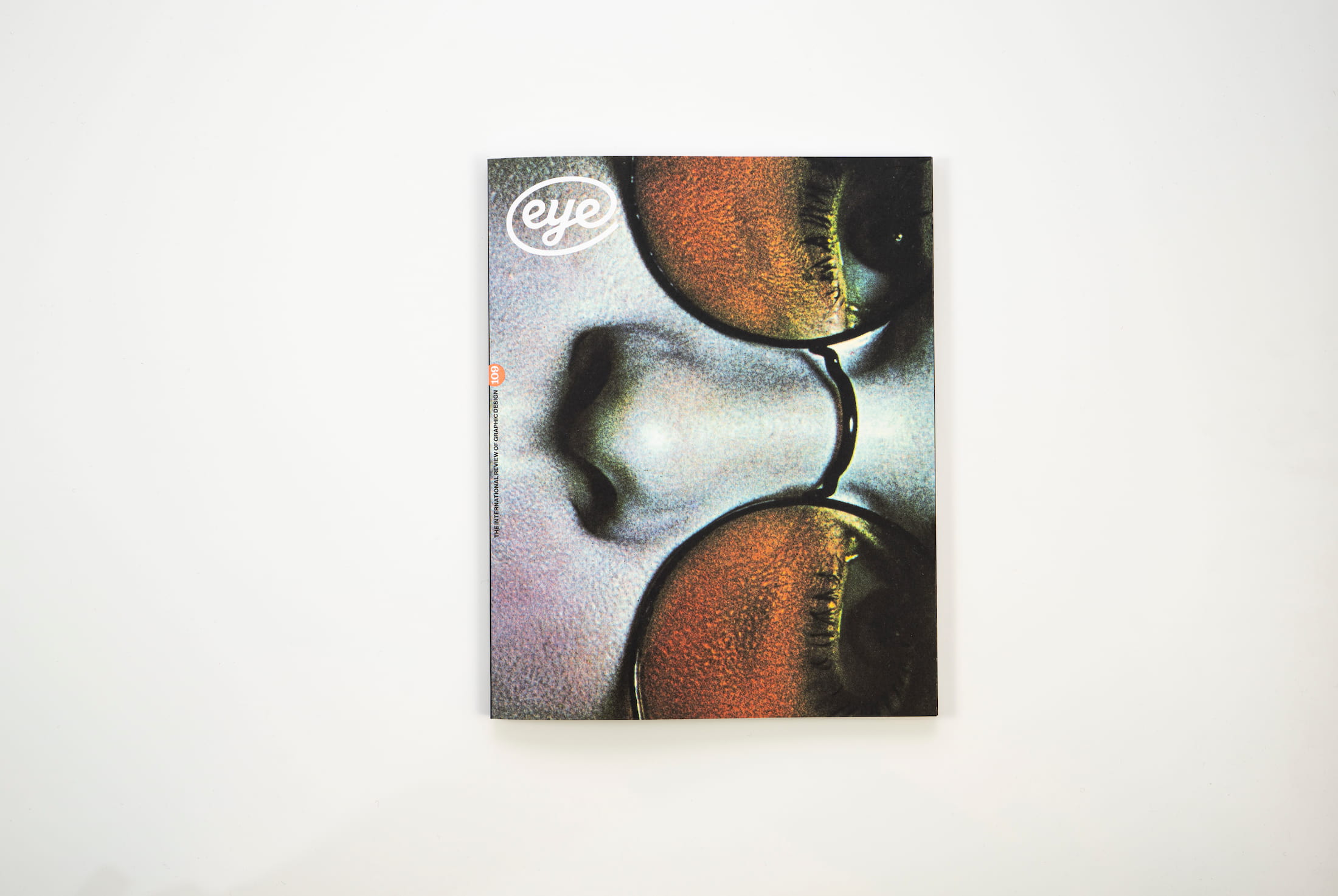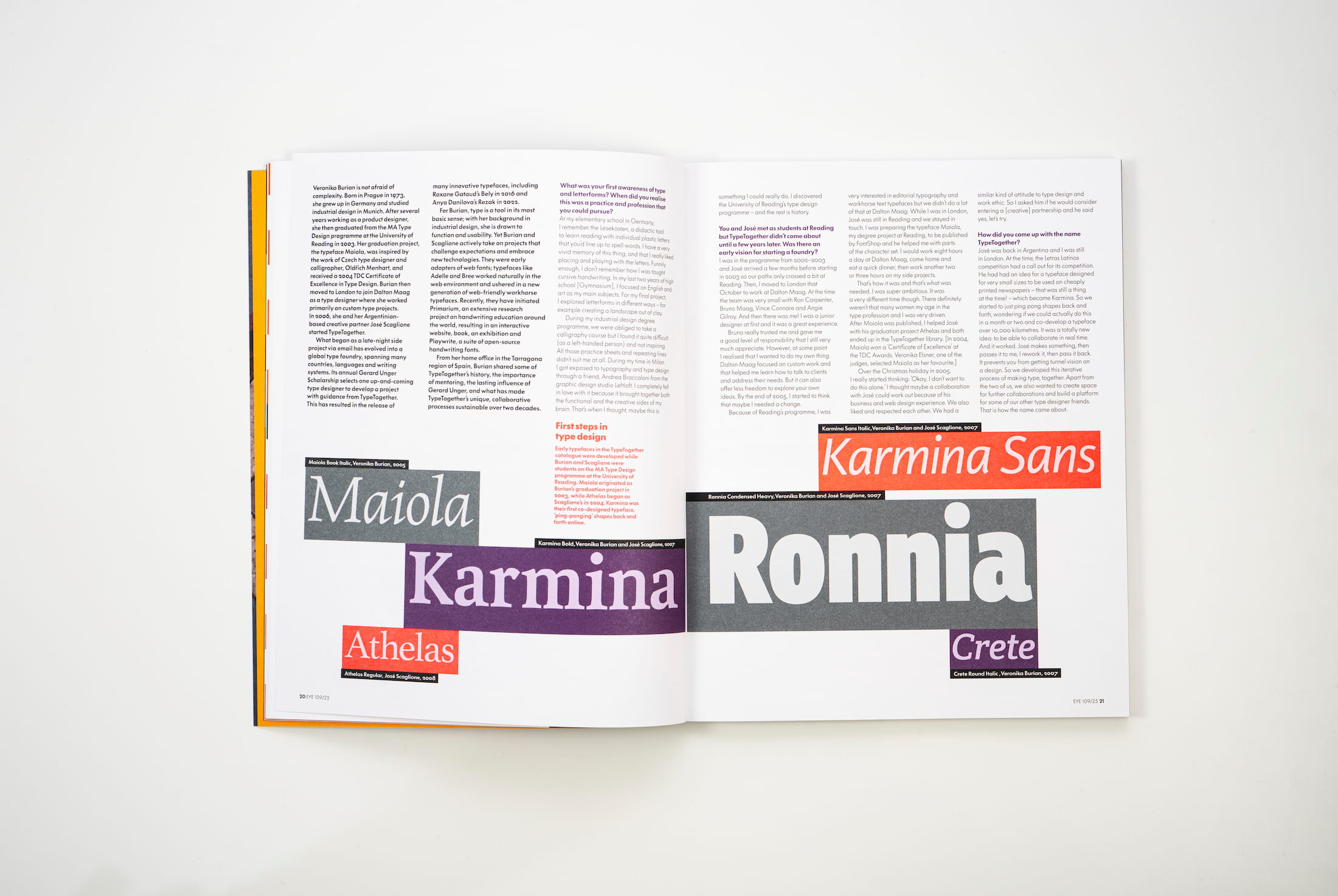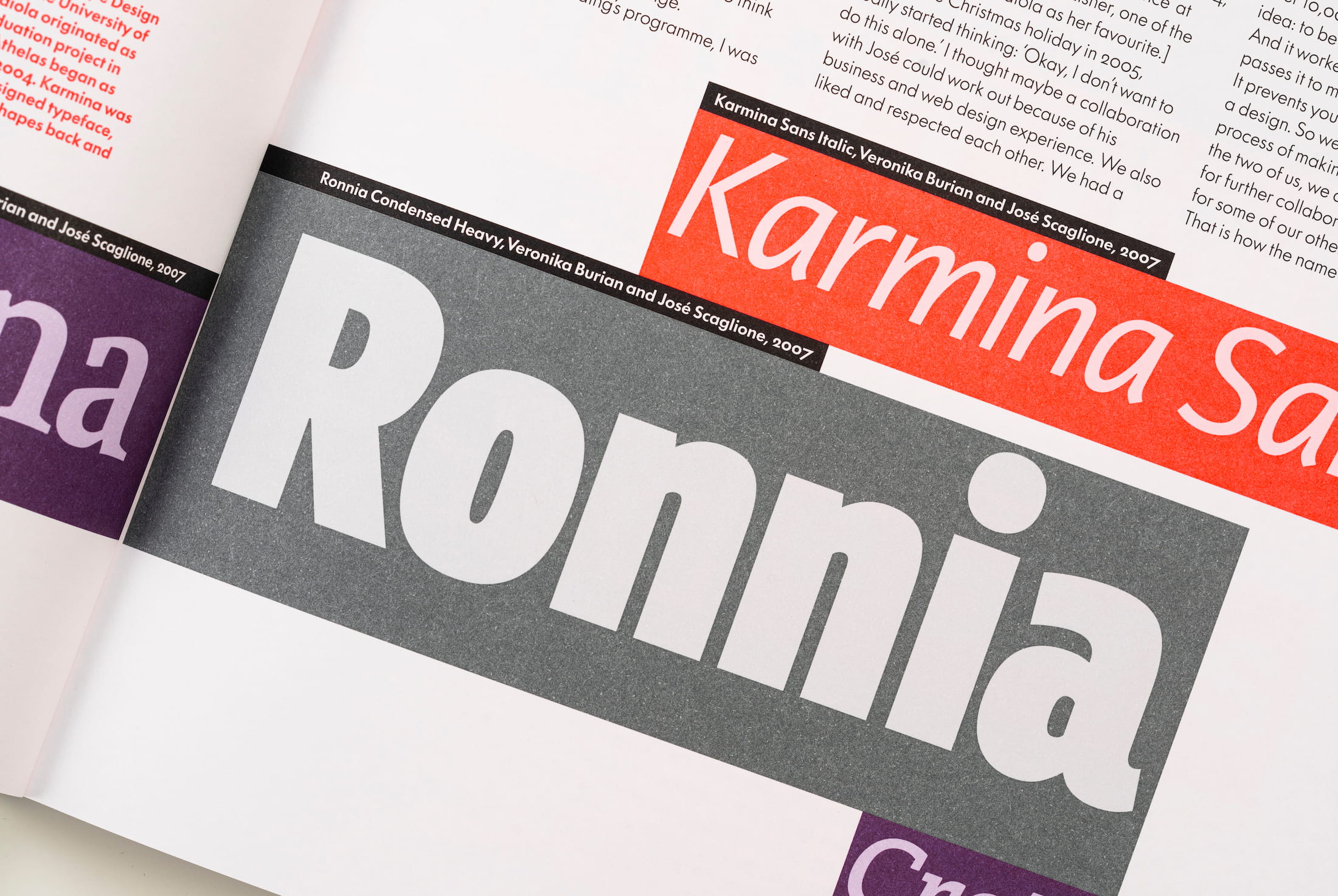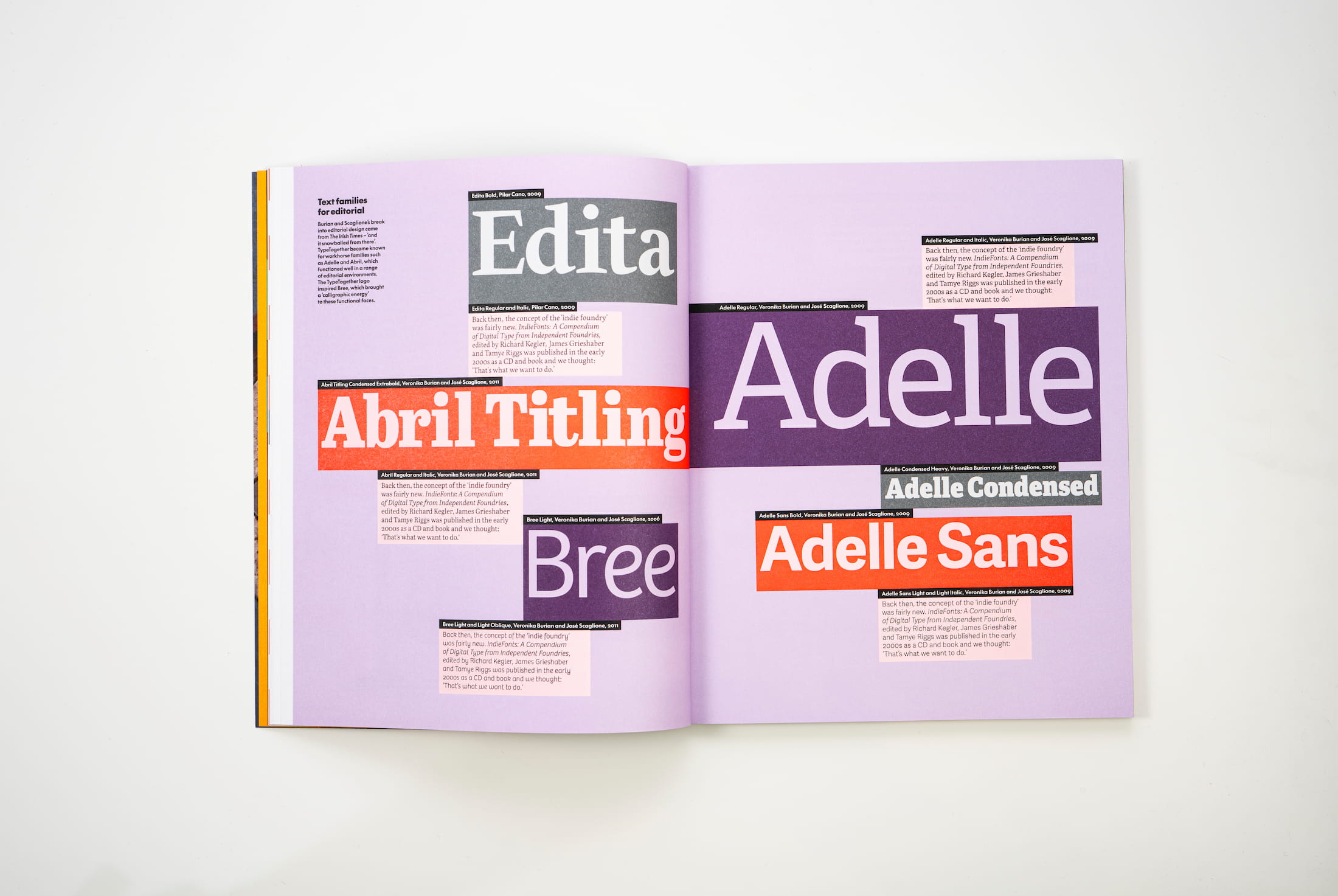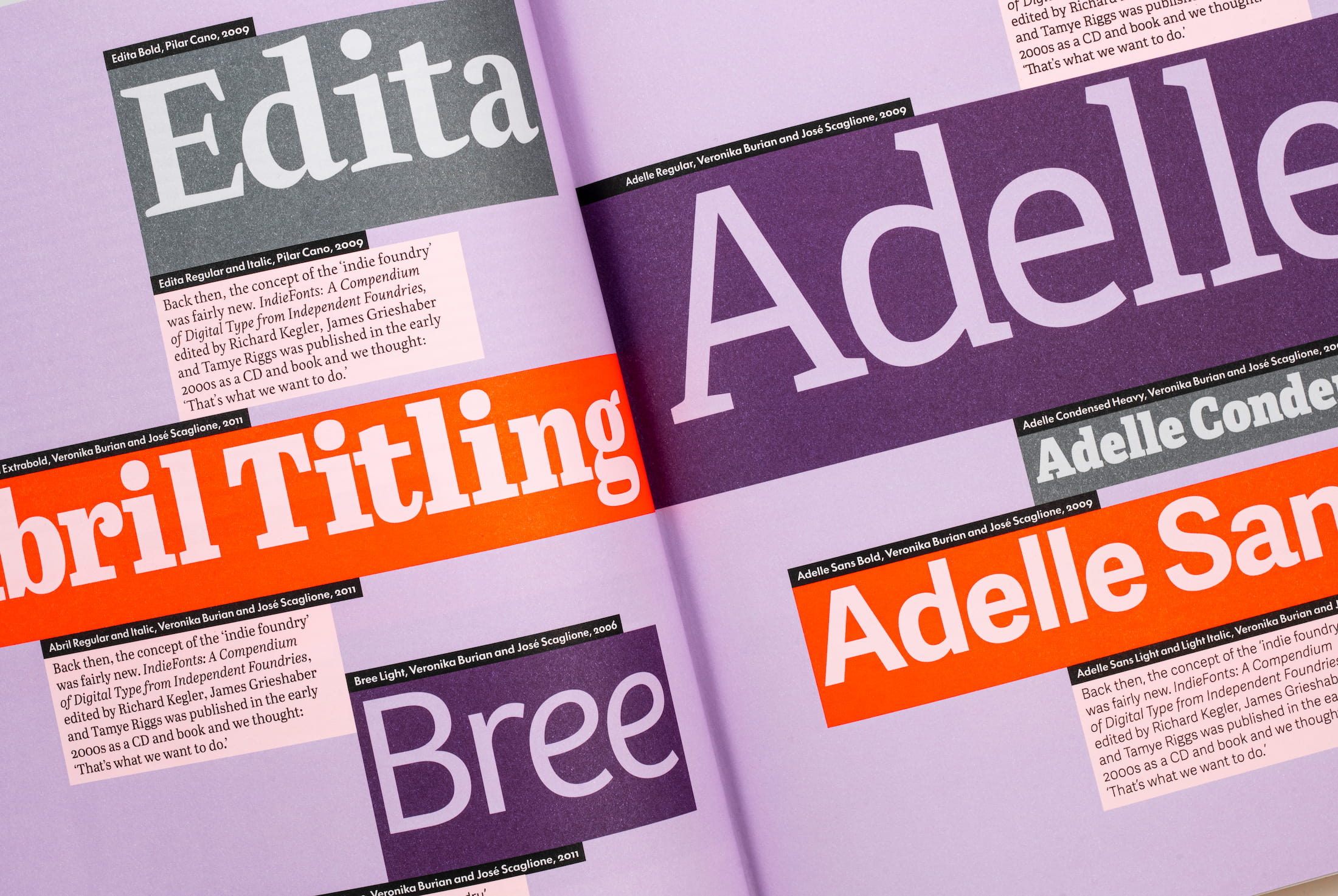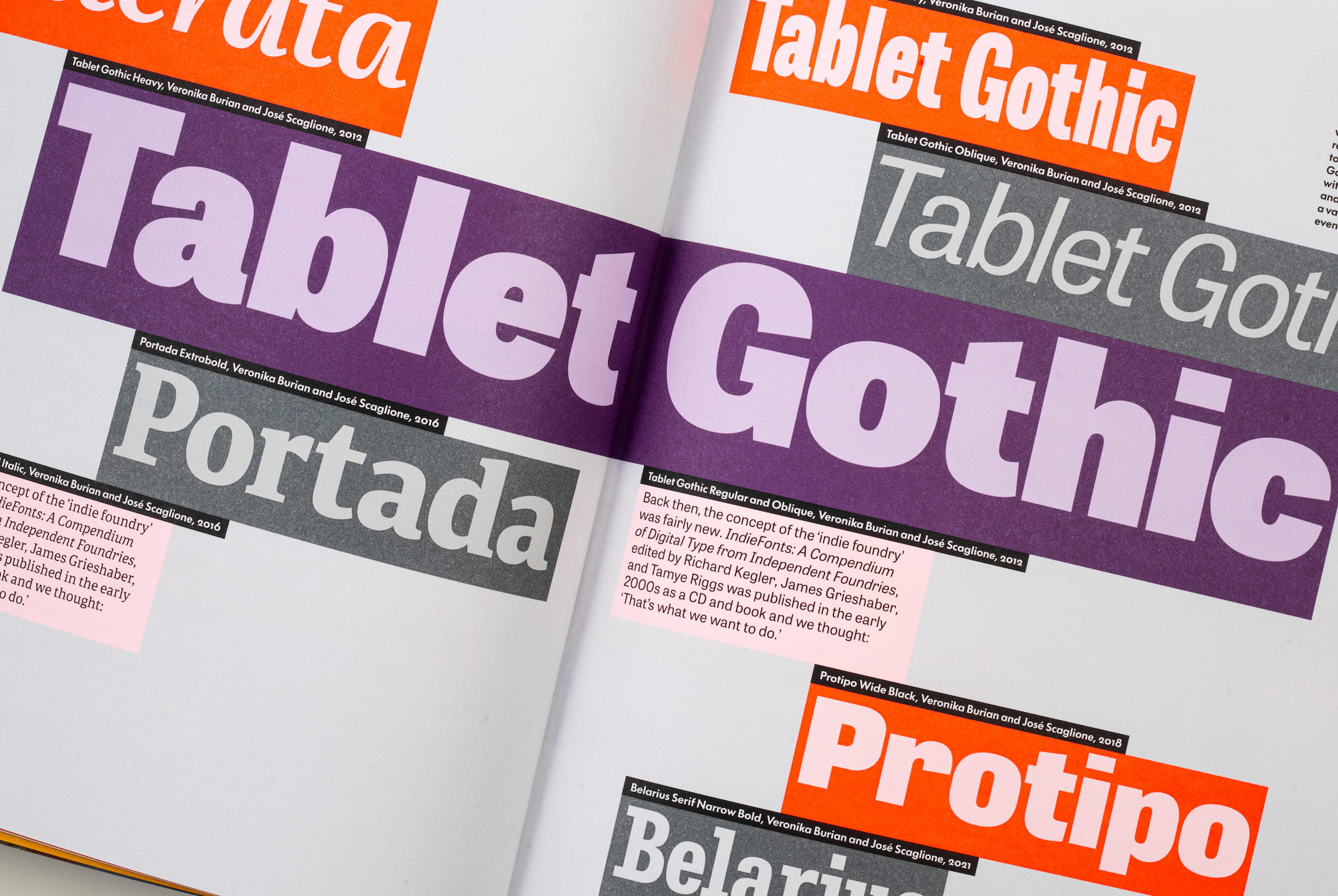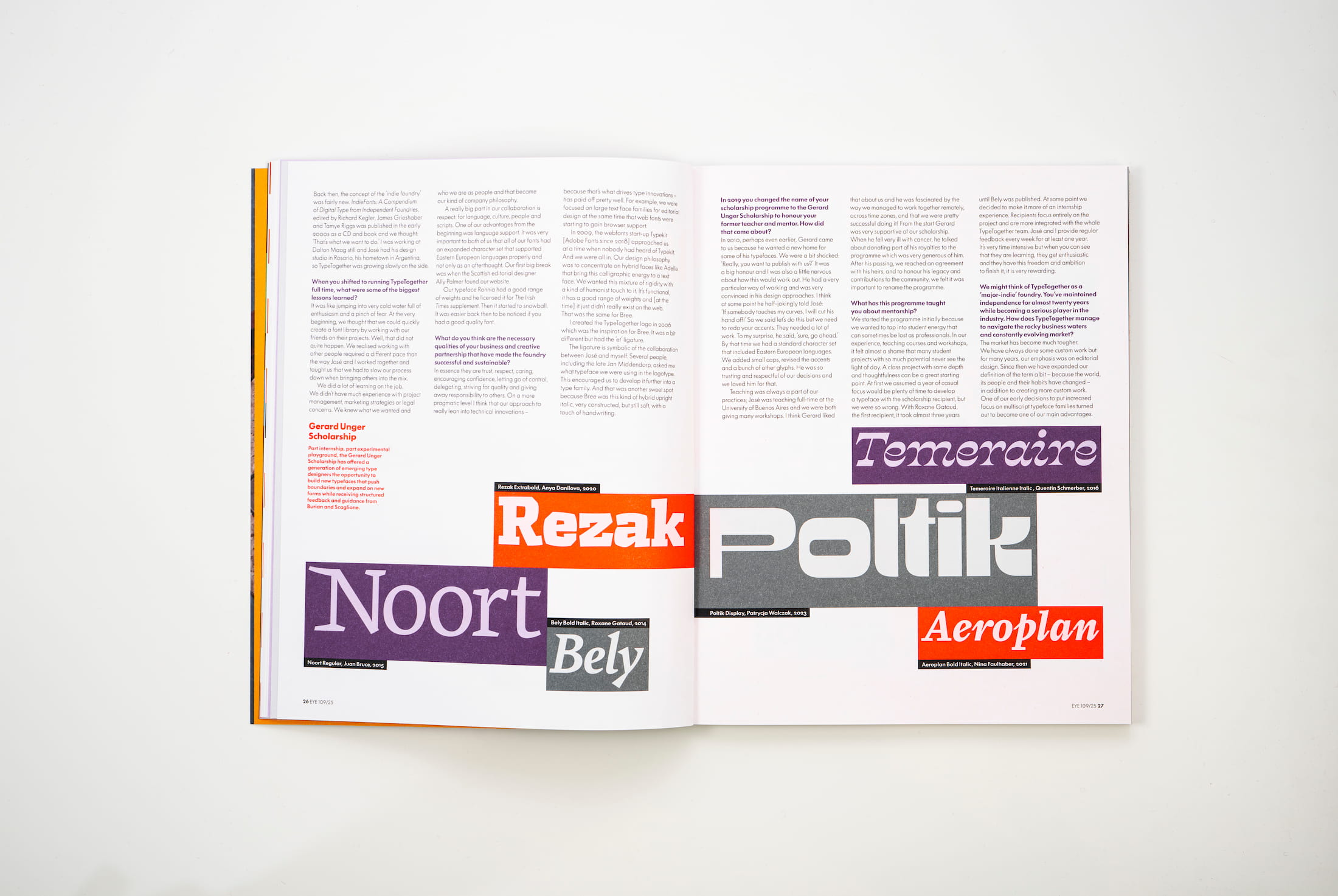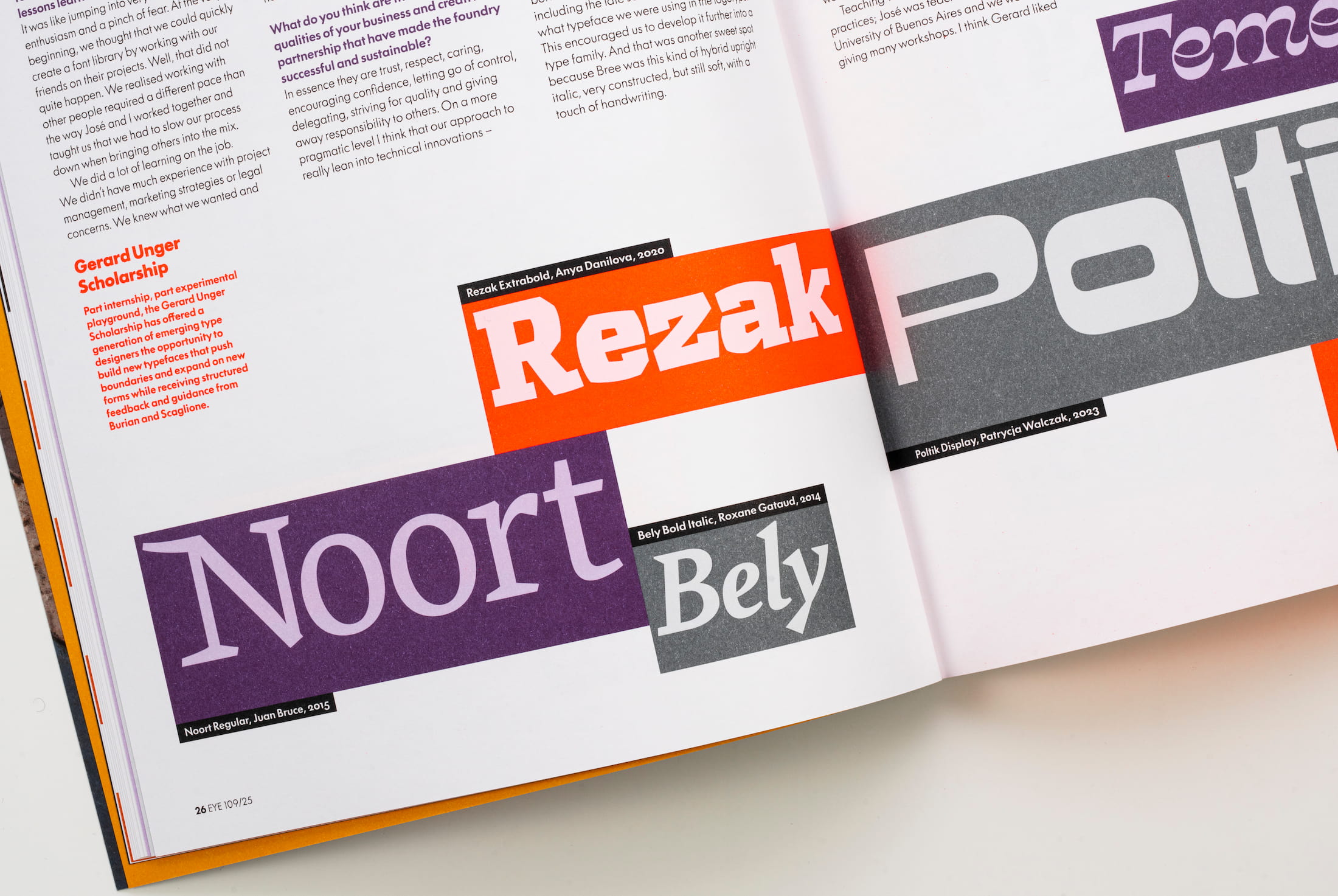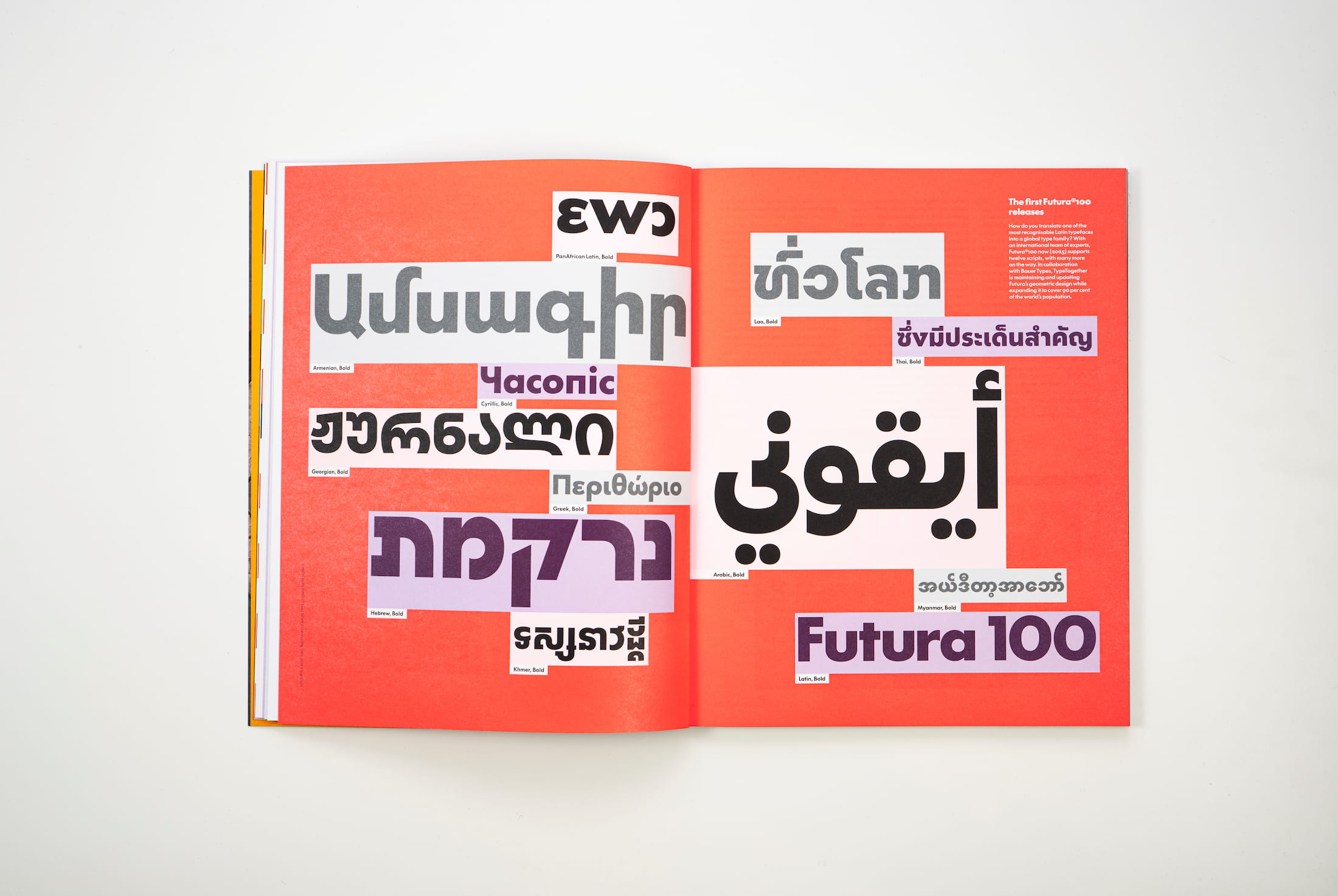
Veronika Burian interview in Eye Magazine
Eye Magazine is always a treat for the mind and the senses, and Eye 109 features a wide-ranging conversation between our co-founder, Veronika Burian, and the design educator and writer Amy Papaelias.
Eye Magazine’s Reputations interviews have highlighted many of the design world’s most prominent figures, and in the latest issue, Eye 109 (in better newsstands now), our co-founder Veronika Burian talks about her own journey into type and provides insights into her own process.
“How much can we simplify the shapes without losing clarity, legibility and cultural acceptance?” Veronika asks in the interview. She describes her own path as a type designer, starting with discovering ‘Lesekasten’ letters as a child, attending the University of Reading’s type design programme, and co-founding TypeTogether with fellow Reading student José Scaglione.